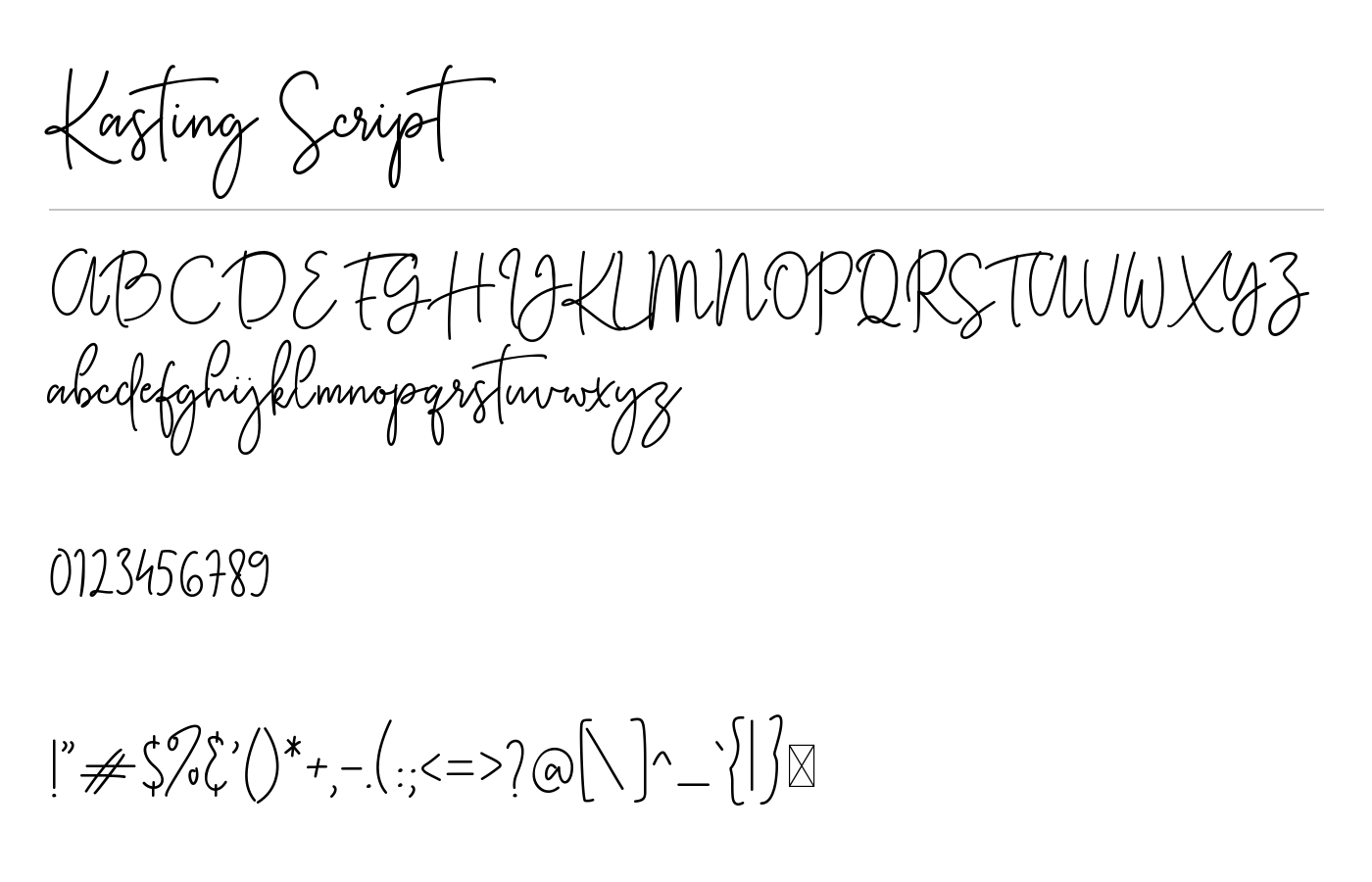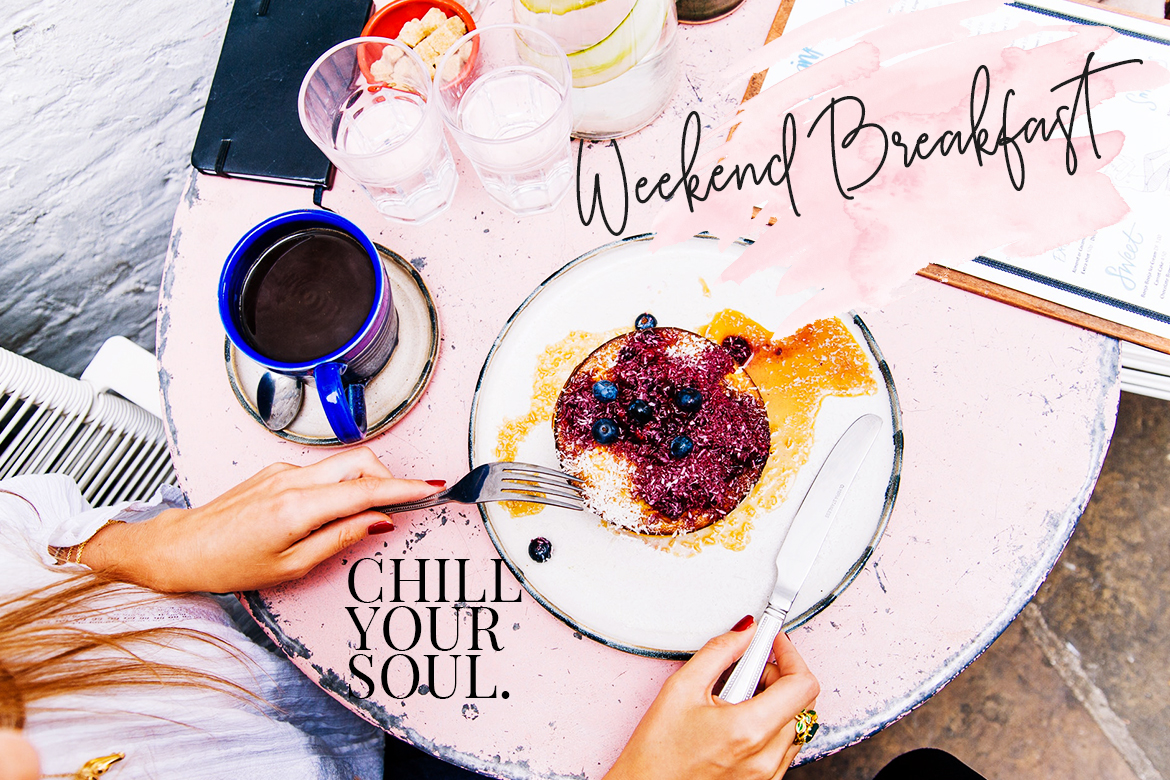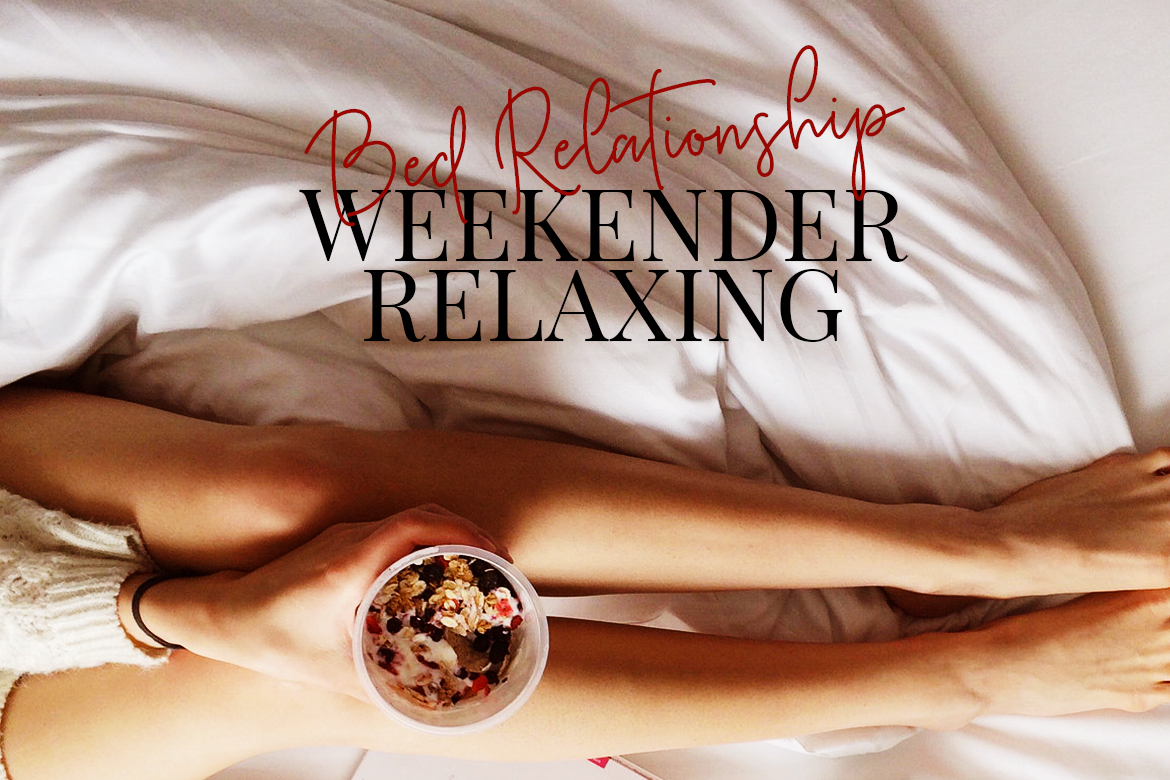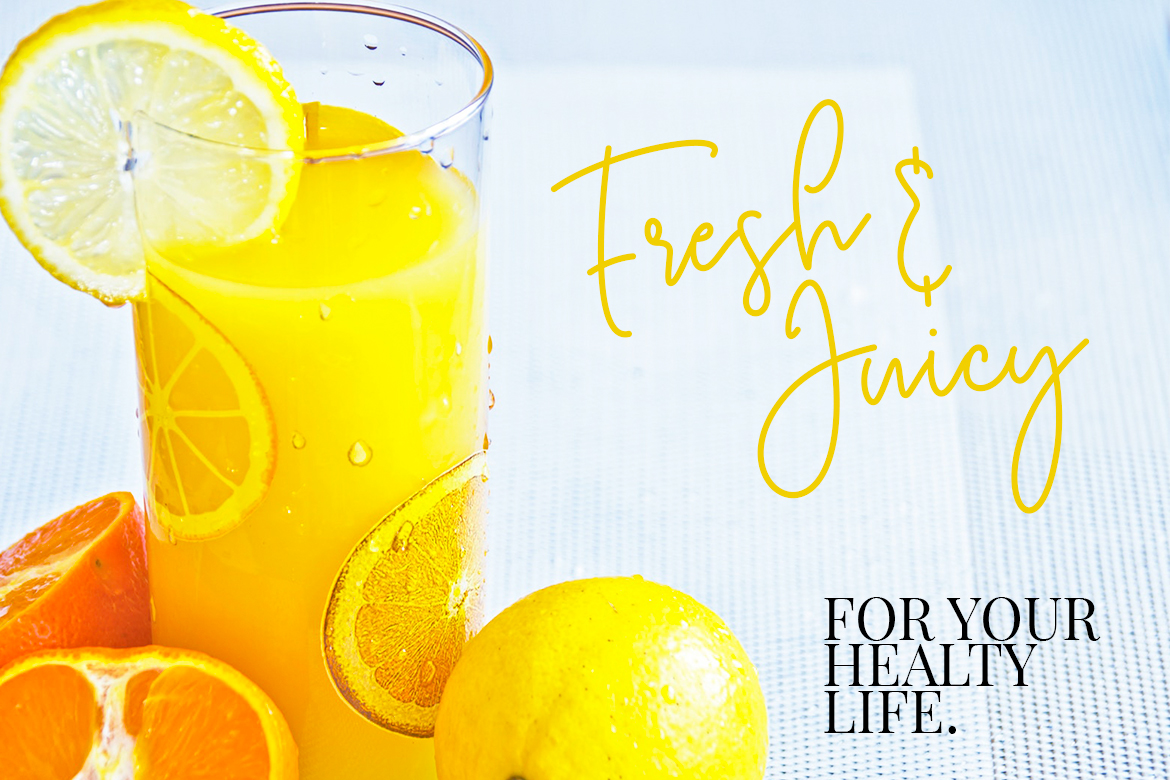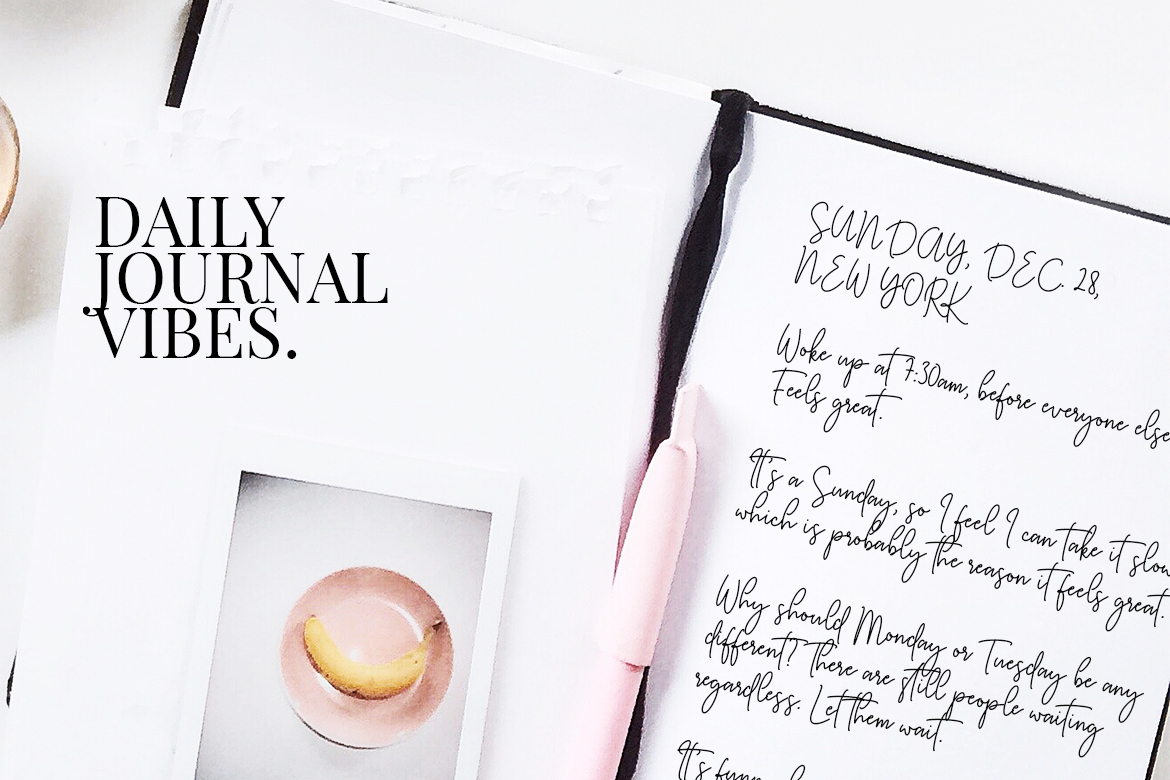
Kasting Script Signature is a delicate, handwritten script font that exudes a personal and elegant touch with its tall, slender letterforms and fluid strokes. Its light weight and flowing, connected style make it perfect for adding a sophisticated, intimate feel to branding, invitations, and social media graphics. This font works beautifully for projects that aim to convey warmth, creativity, and a refined yet approachable personality.
Kasting Script Signature
About Kasting Script Signature